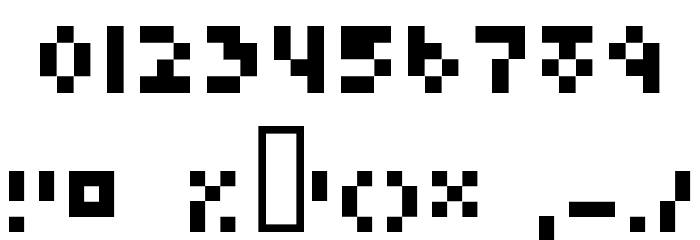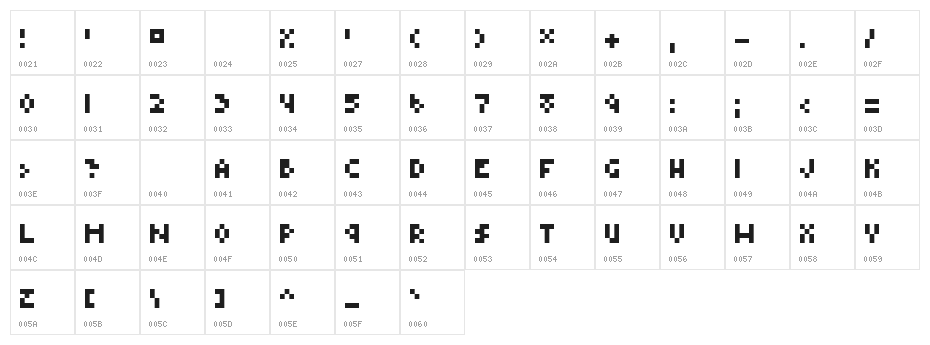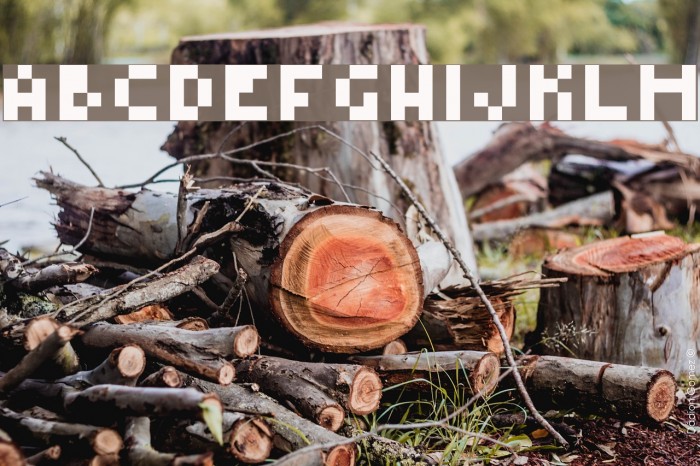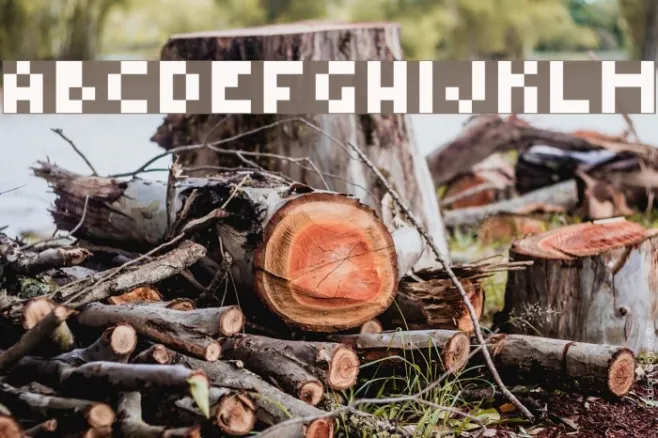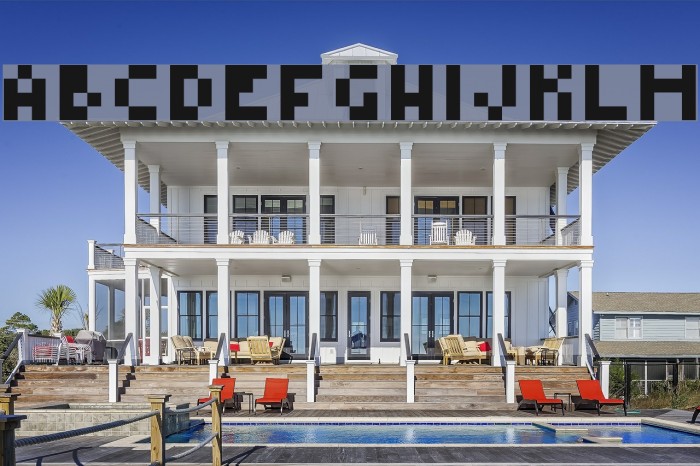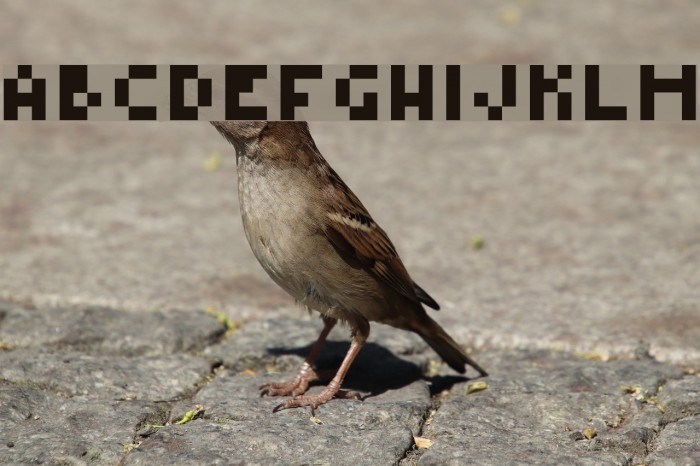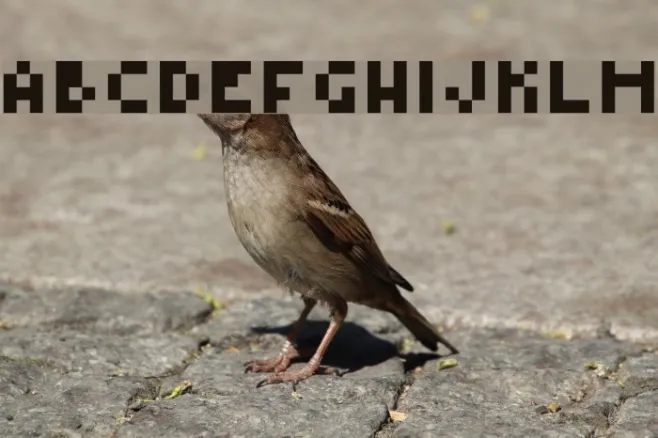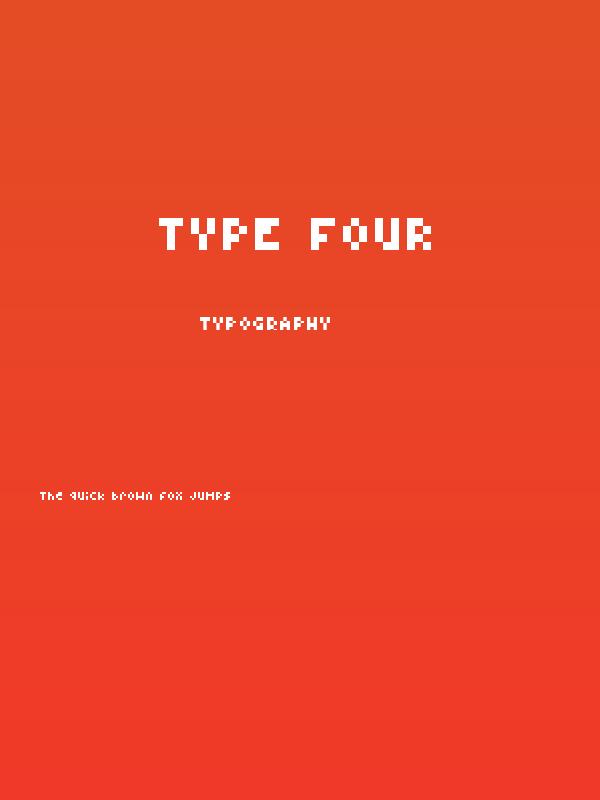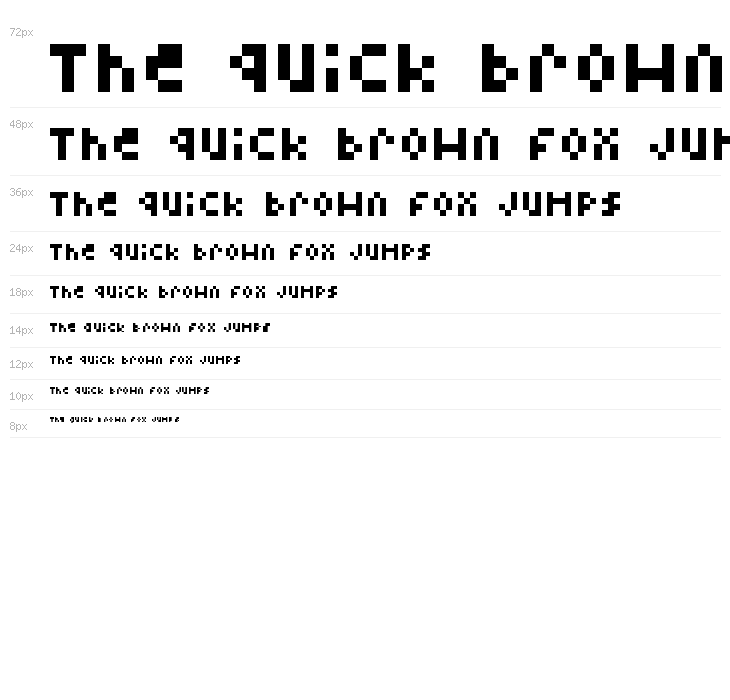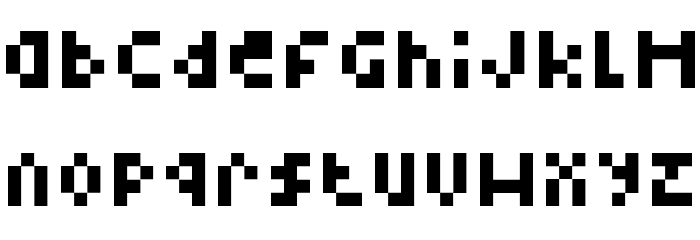
Type Four Font
Type Four Description
This font features a bold, pixelated design reminiscent of early digital displays and video games. Each character is constructed with a blocky, geometric style, emphasizing a retro, digital aesthetic. The uppercase and lowercase letters maintain a consistent height, contributing to a uniform appearance. Numbers and special characters follow the same pixelated pattern, ensuring a cohesive look across all elements. The font's distinct style makes it ideal for projects that require a nostalgic or tech-inspired theme.
| Proposed Projects | Ideal for video game graphics, retro-themed posters, digital art, and tech-inspired branding. |